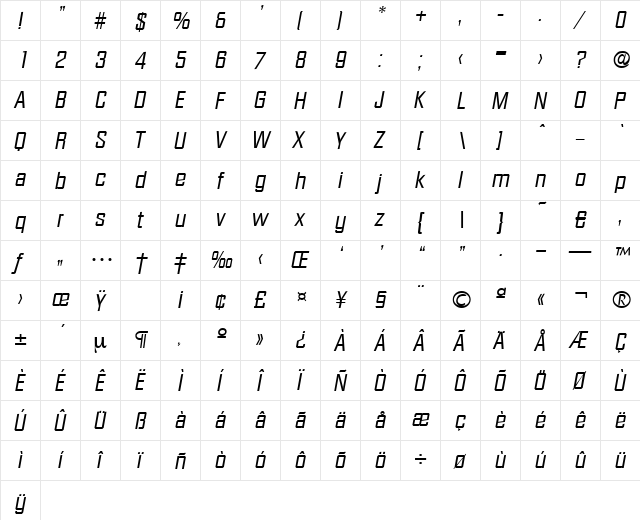
Diamante-RegularIta Regular Font Preview
Diamante-RegularIta Regular
Diamante-RegularIta Regular Font Details
Design Context for Diamante-RegularIta Typeface
Diamante-RegularIta takes a measured approach to typography — its balanced proportions and neutral character make it a reliable workhorse for both digital and print work.